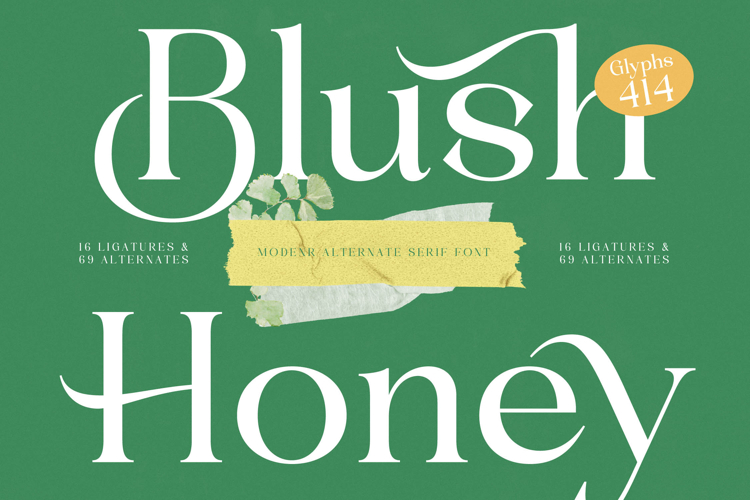
Blush Honey - Modern Alternate Serif Font
Elevate your design projects with the exquisite charm of Font Blush Honey - Modern Alternate Serif Font Serif Display, a typeface meticulously crafted for luxury and sophistication. This modern alternate serif font embodies a graceful elegance, featuring high-contrast letterforms, delicate serifs, and sweeping swashes that command attention. It's the quintessential choice for designers seeking to infuse their work with an air of refined beauty and timeless allure.
Unleash unparalleled creative possibilities with Font Blush Honey - Modern Alternate Serif Font Serif Display's comprehensive set of 16 ligatures and 69 alternates, alongside a generous offering of 414 glyphs. These extensive stylistic options allow for truly bespoke typography, enabling you to tailor each word for maximum impact and visual interest. Its inherent versatility makes it perfect for creating unique logos, eye-catching titles, and captivating headers.
Experience global reach with a font designed for international impact. With its extensive multilingual support, Font Blush Honey - Modern Alternate Serif Font Serif Display adapts seamlessly across global markets, making it incredibly versatile for international projects. This ensures your brand messaging resonates consistently, transcending language barriers while maintaining its inherent elegance and professional appeal.
Font Blush Honey - Modern Alternate Serif Font Serif Display is the ultimate selection for applications demanding a distinguished touch. It is perfect for luxury branding, high-end packaging, prestigious editorial design, fashion layouts, sophisticated wedding invitations, and striking magazine covers. Infuse your designs with an unforgettable identity and make a lasting impression with this truly magnificent display font.